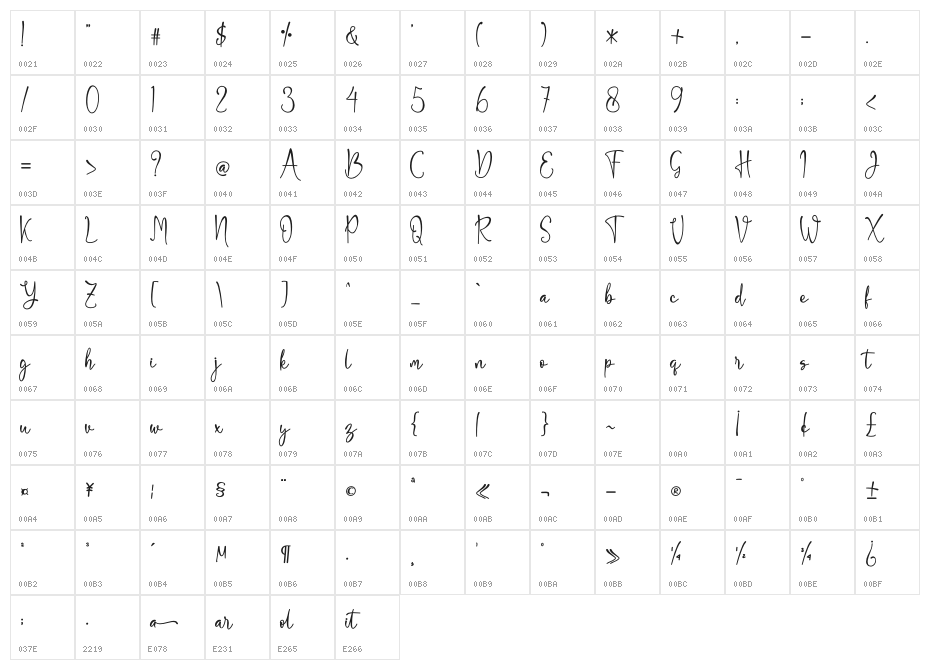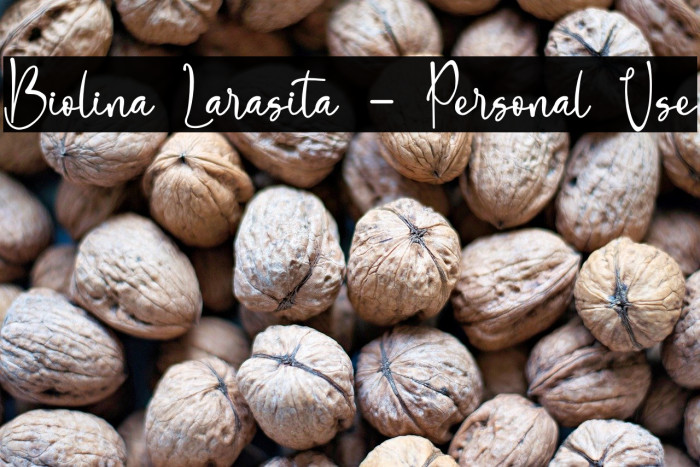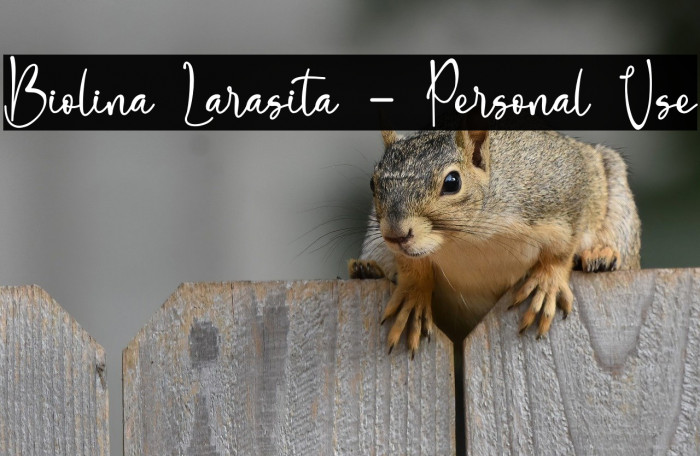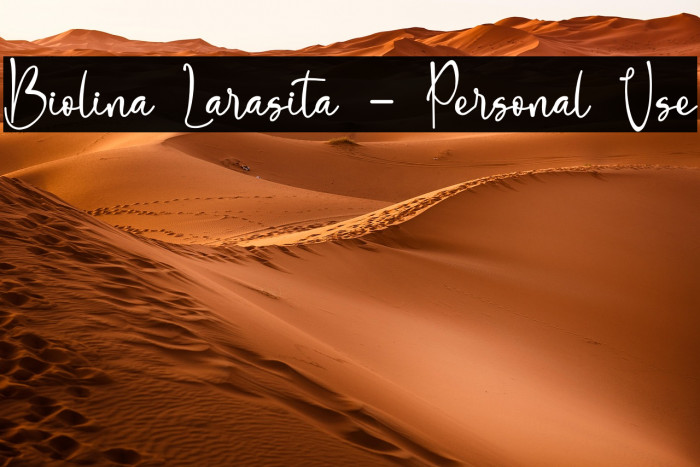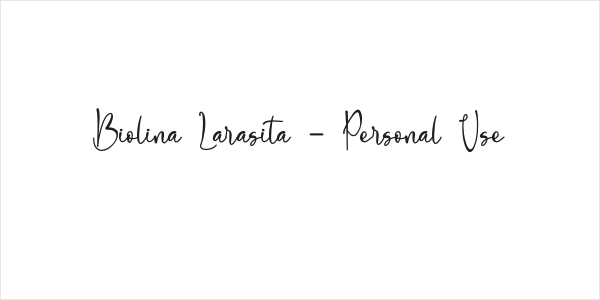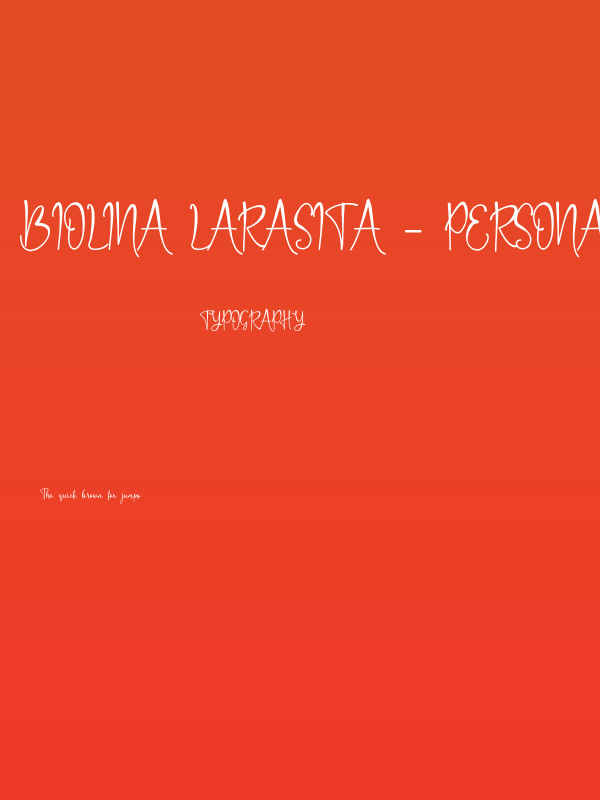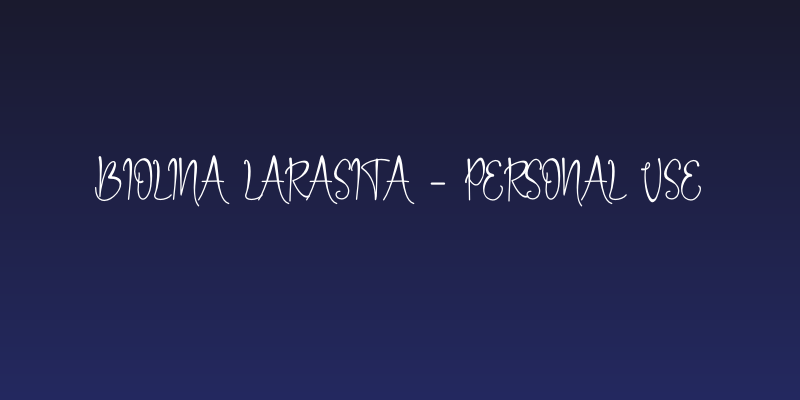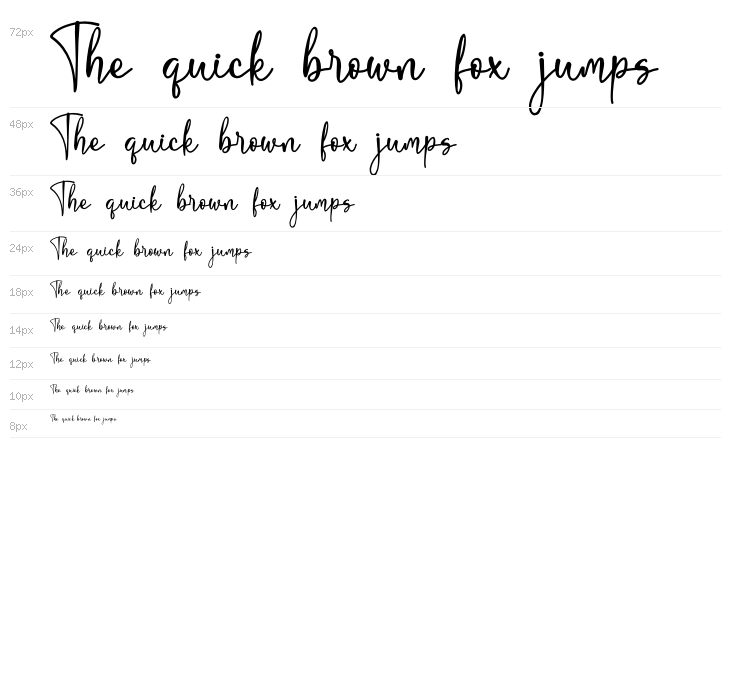
Biolina Larasita - Personal Use Font
Biolina Larasita - Personal Use Description
This font features a playful and elegant handwritten style with a touch of whimsy. The uppercase letters are tall and slender, with a slight slant and decorative loops that add a sense of movement and flair. The lowercase letters maintain a consistent flow, with smooth curves and a casual, yet refined appearance. The numerals are clear and distinct, complementing the overall style with their rounded forms. Special characters are creatively integrated, maintaining the font's unique personality. This font is perfect for projects that require a personal and artistic touch.
| Proposed Projects | Ideal for wedding invitations, greeting cards, personal branding, and creative projects that require a personal touch. |